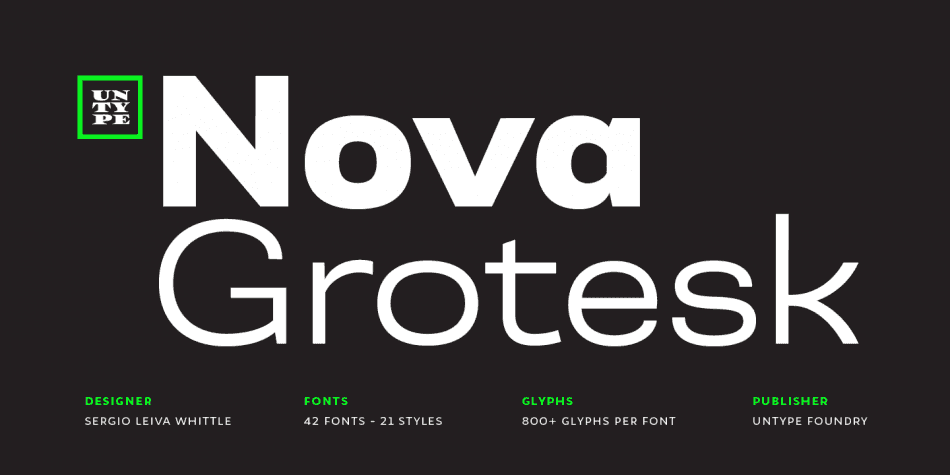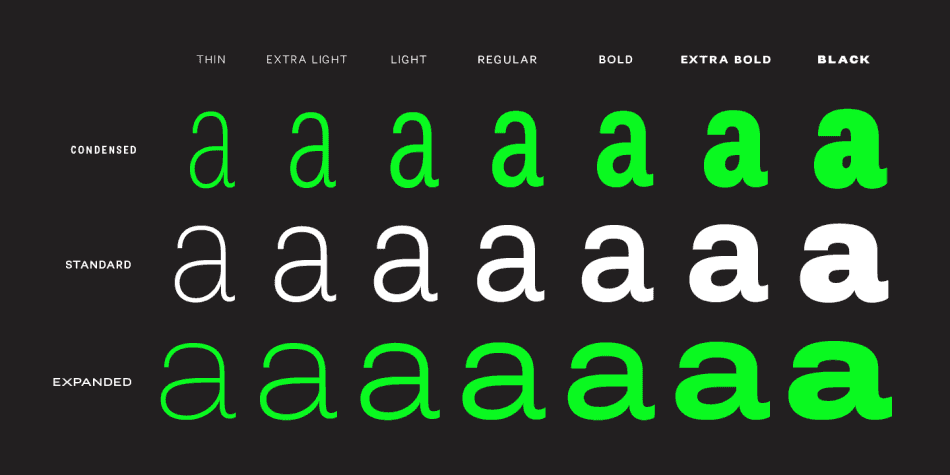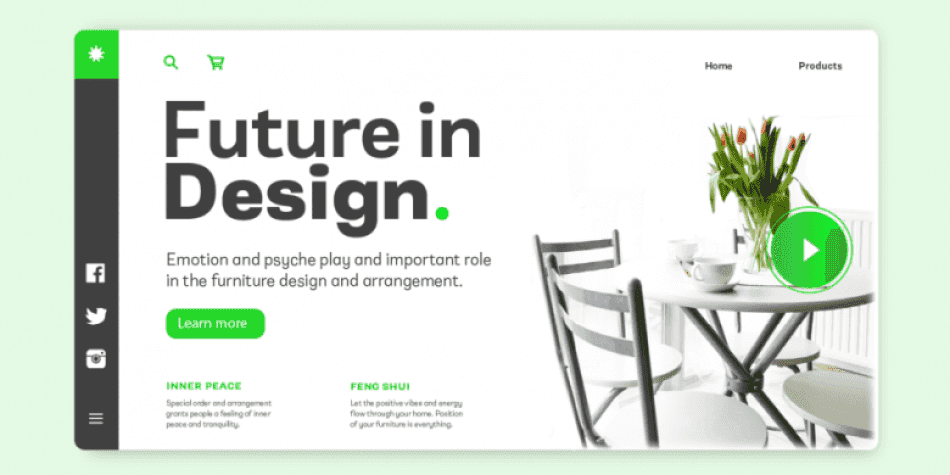
Nova Grotesk Sans Font Family is an exciting modern take on traditional sans serif fonts created in the 19th century. Inspired by humanist sentiments and evolving into an inviting Grotesque font full of character and utility. Available from Thin to Black it features seven weights with matching obliques across three widths to produce 42 different styles; additionally over twenty OpenType features such as small caps, old-style numerals, style alternatives ornaments as well as many other characteristics provide endless enjoyment to users of all ages and tastes!